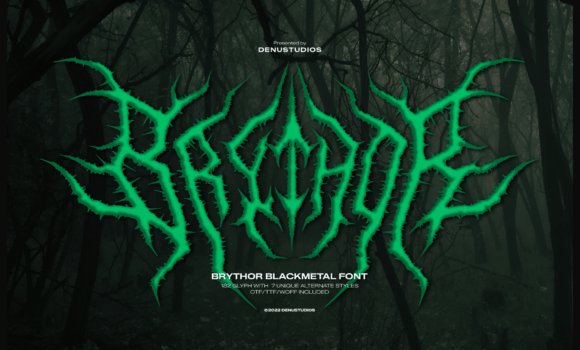
brythor
Brythor Font – Free Download Introduction to Brythor Font The Brythor font is an aggressive and visually striking black metal typeface designed for intense, high-impact creative projects. 📸 Preview Gallery 6 images 📌 Product Name Brythor Font 👤 Author Denustudios